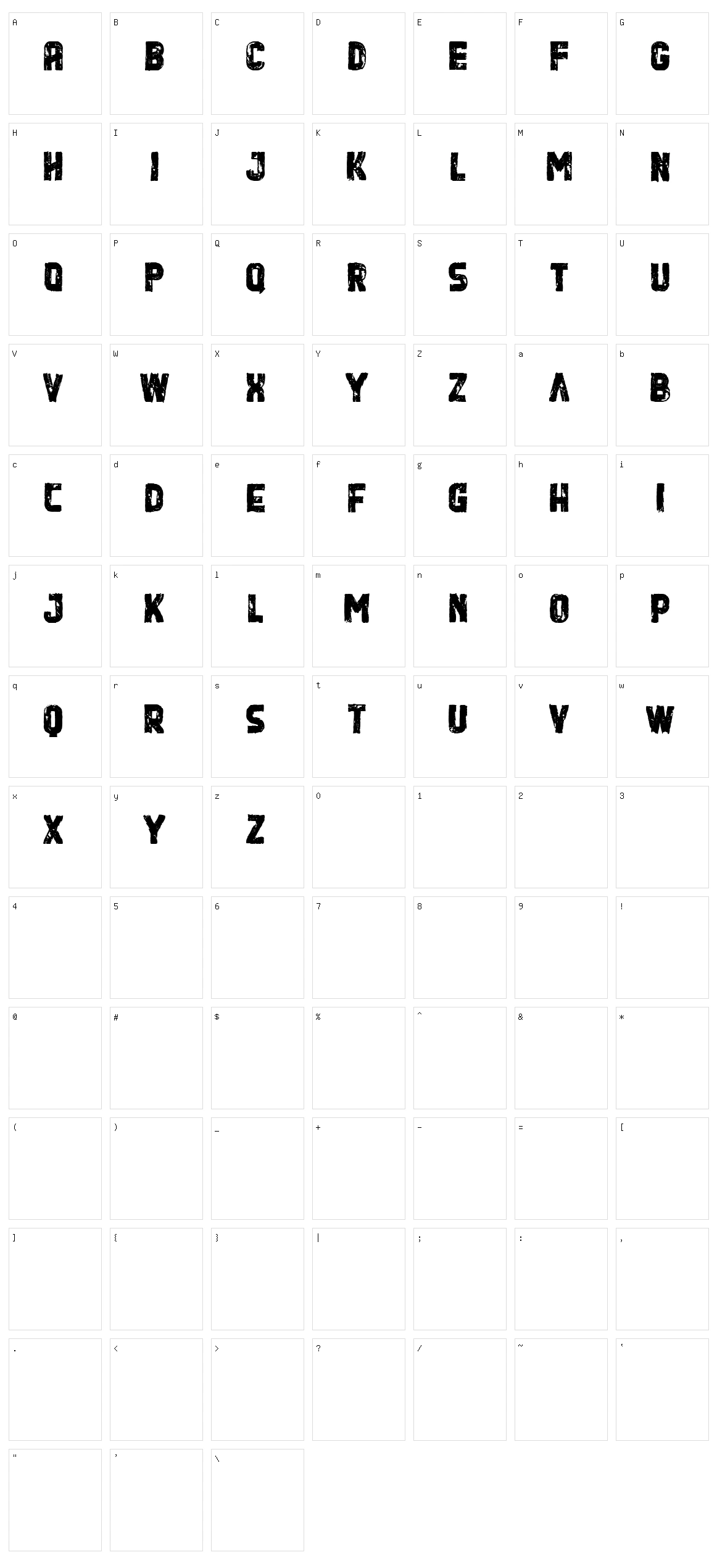
The free font Quashar is carefully designed by Typia Nesia, showcasing a thoughtful balance of creativity and usability and falls under the Eroded font style. When you download the ZIP file, it contains only 170 KB of font files, making it lightweight and quick to download. Please review the license details below to understand permitted usage and distribution rights. If license information is not available, we recommend using this font for personal projects only or contacting the author directly for commercial usage permissions.